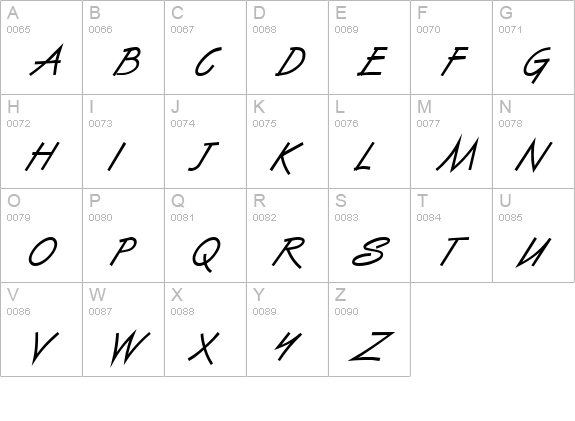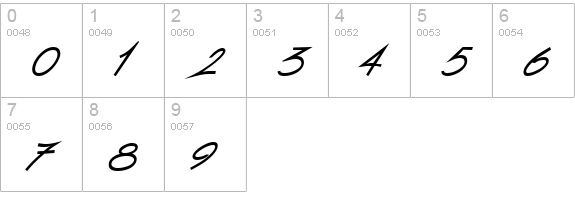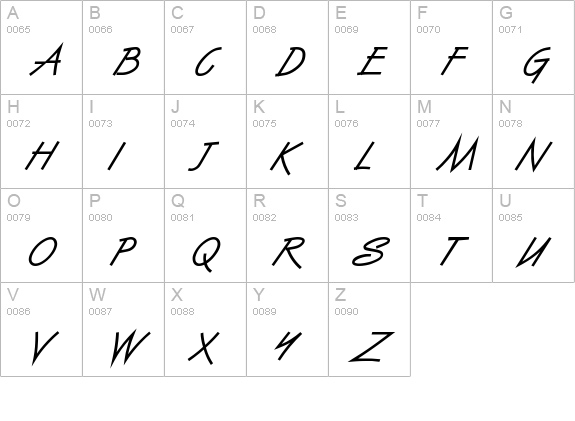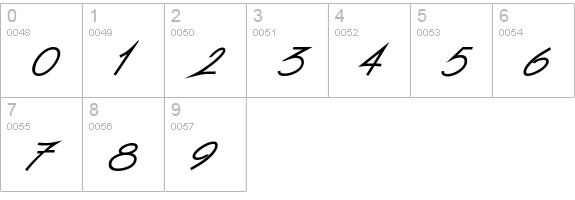
The Surfer BoldItalic font is a dynamic and stylish typeface that exudes energy and motion, making it the perfect choice for projects that require a sense of adventure and excitement. The combination of bold letterforms and italic accents creates a visually striking look that is both modern and captivating. This versatile font is ideal for a wide range of design applications, from branding and advertising to posters and social media graphics. Its sleek and contemporary appearance will make your text stand out and grab the attention of your audience. The best part is that Surfer BoldItalic font is available for free download at FontsMarket.com. This means you can start using this eye-catching typeface in your projects right away, without any cost involved. Don't miss out on the opportunity to add a touch of boldness and flair to your designs with the Surfer BoldItalic font. Download it now and unleash your creativity!